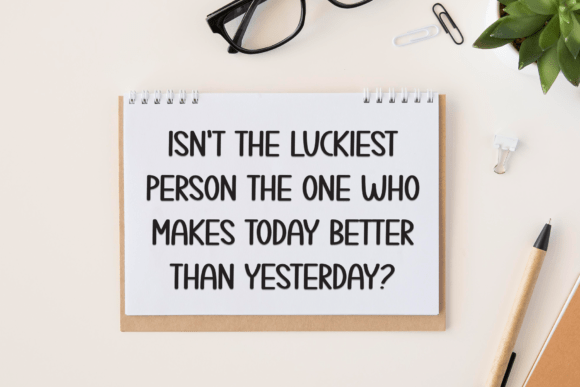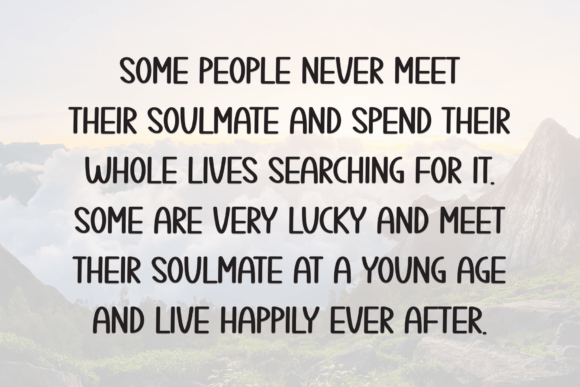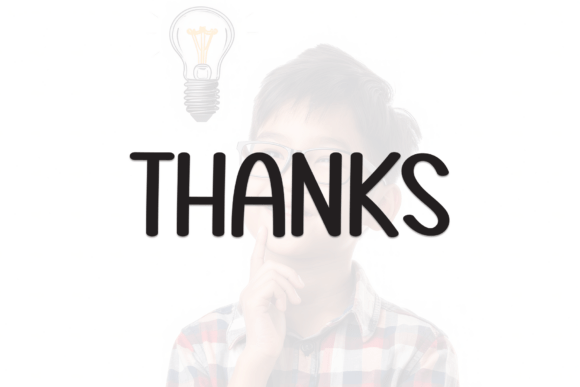
Introduction to Child Smart Font
Remember that moment when you stumbled upon the perfect font for your creative project? The one that instantly lifted your design from ordinary to extraordinary? For designers, finding that elusive perfect font can be a game-changer. It’s what sets your work apart, adds a touch of personality, and makes your designs truly unforgettable.
Enter the Child Smart Font, a captivating typeface that’s sure to become your new design BFF. With its warm and inviting letterforms, this delightful font injects an element of merriment and delight into your entire creative portfolio. Whether you’re crafting sophisticated wedding invites or impactful greeting cards, the Child Smart Font is primed to fill your designs with character.
Key Features of Child Smart Font
- High-quality, hand-drawn design with a transparent background, perfect for creative projects.
- Designed to be versatile and suitable for a wide range of applications, from children’s books to educational materials.
- Features a unique, playful style that is both engaging and easy to read, making it an ideal choice for any creative project.
Honest Review: Child Smart Font
As a designer, I’m always on the lookout for high-quality design resources that can elevate my creative projects. Recently, I came across the Child Smart Font, and I’m excited to share my honest review.
- ✨ Great for children’s book illustrations and educational materials
- ✨ Beautiful, playful characters that are easy to customize
One of the standout features of Child Smart Font is its transparent background, which makes it easy to layer with other design elements. The font also comes in a range of colors and styles, making it perfect for a variety of creative projects.
However, I did notice that the font can be a bit pixelated when used at larger sizes. This is a ⚠️ limitation, but it’s not a deal-breaker for me.
Overall, I’m impressed with the Child Smart Font. It’s a great design resource that can add a touch of personality to any project. With its high-quality characters and transparent background, it’s definitely worth considering for your next creative project.
Designing with Child Smart Font
The Child Smart Font is a free download designed to enhance your creative projects with a high-quality, modern aesthetic. With its transparent background, this versatile font can be used across various design resources.
Child Smart Font is ideal for a variety of creative projects, including digital invitations, social media graphics, and educational materials. Its modern design makes it perfect for any project requiring a clean and sophisticated look.